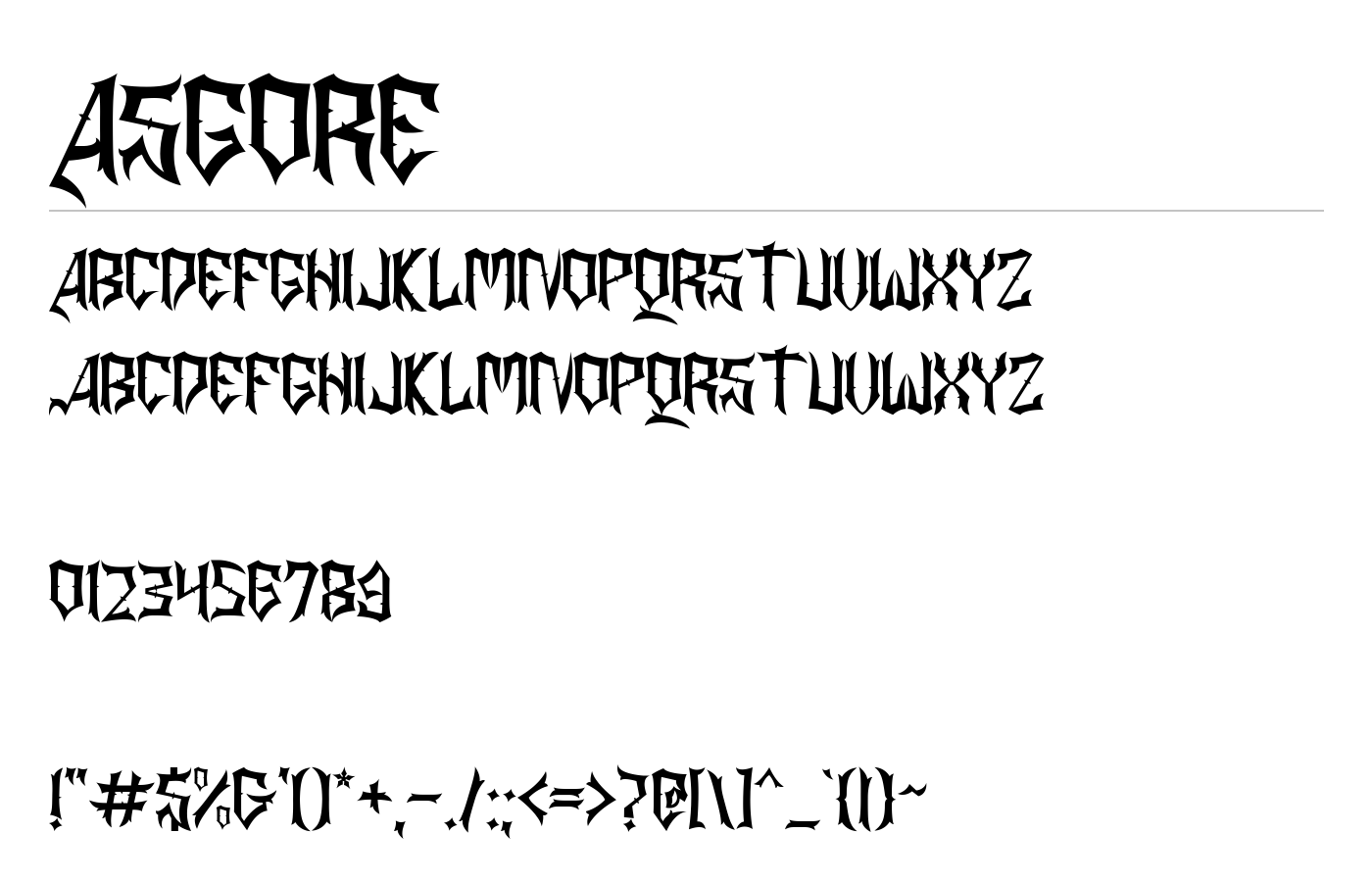
ASGORE is a bold, decorative serif font with a gothic, medieval-inspired style, featuring sharp, angular strokes and high contrast between thick and thin lines. Its unique, intricate letterforms create a dramatic and intense feel, making it ideal for striking headlines, logos, or designs requiring a dark, fantasy-inspired aesthetic. This font works best in contexts where boldness and character are needed to grab attention and convey a sense of mystery or power.
ASGORE Font
| Designer | Sealoung+Saiful Anwar |